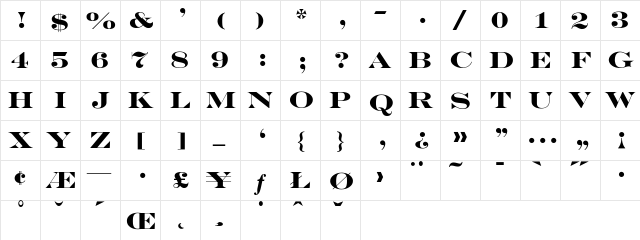
MEngravers-BoldSizeOne Regular
Design Context for MEngravers-BoldSizeOne Typeface
MEngravers-BoldSizeOne is a composed and adaptable typeface that performs quietly and consistently across a wide range of design contexts. Its bold stroke weight gives it real presence on the page.